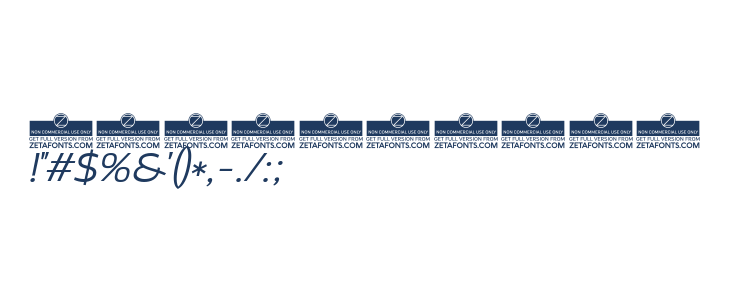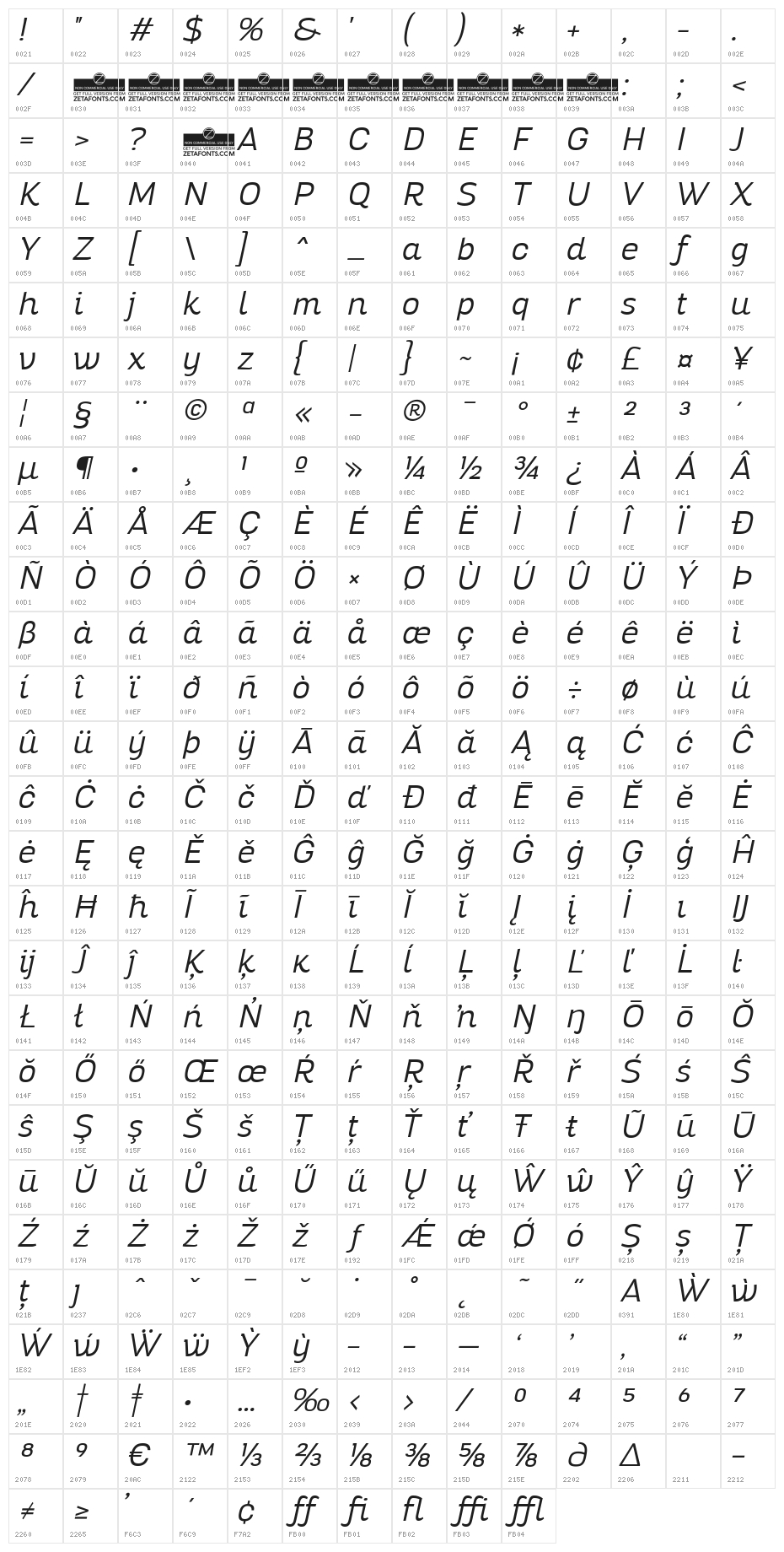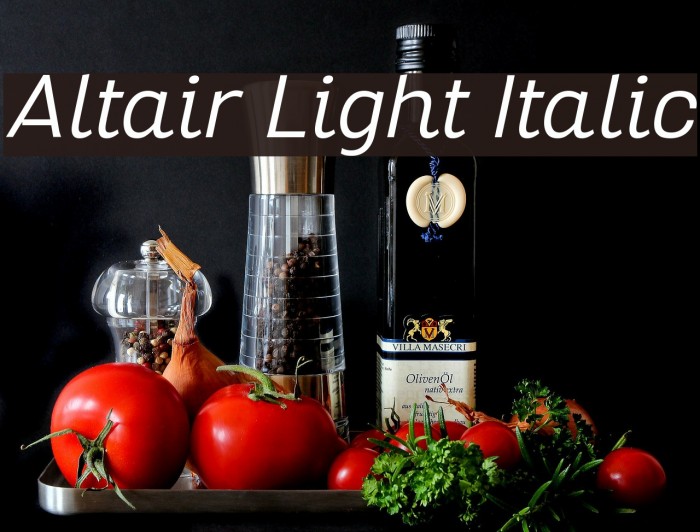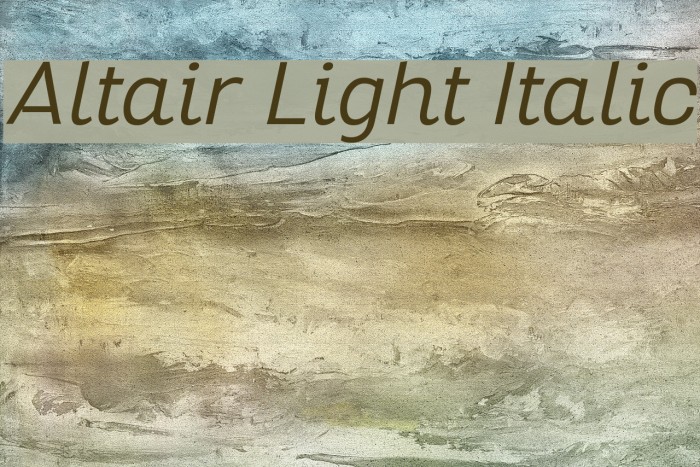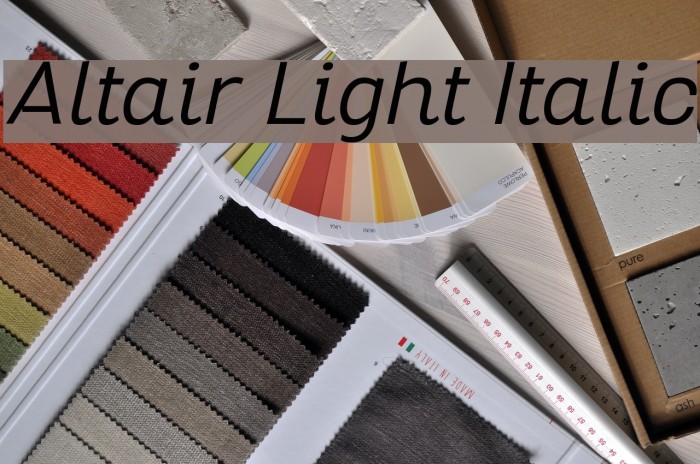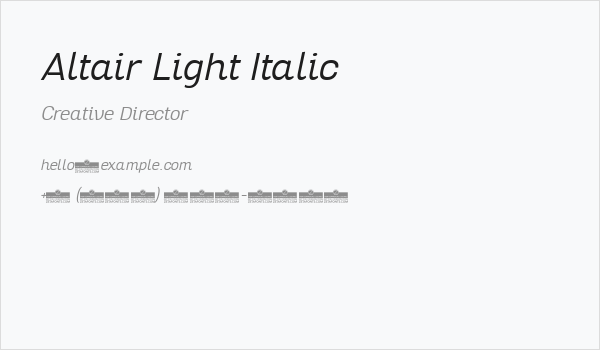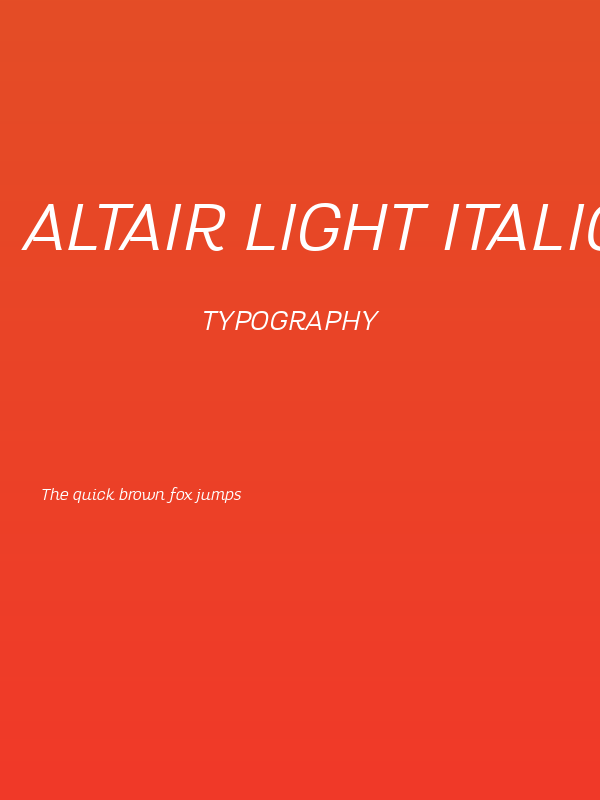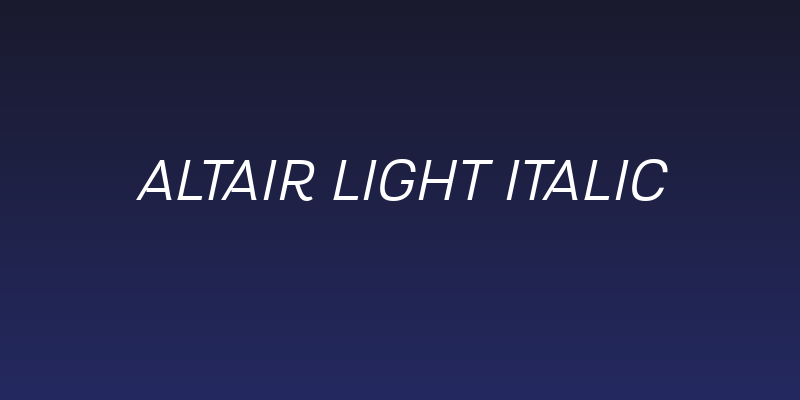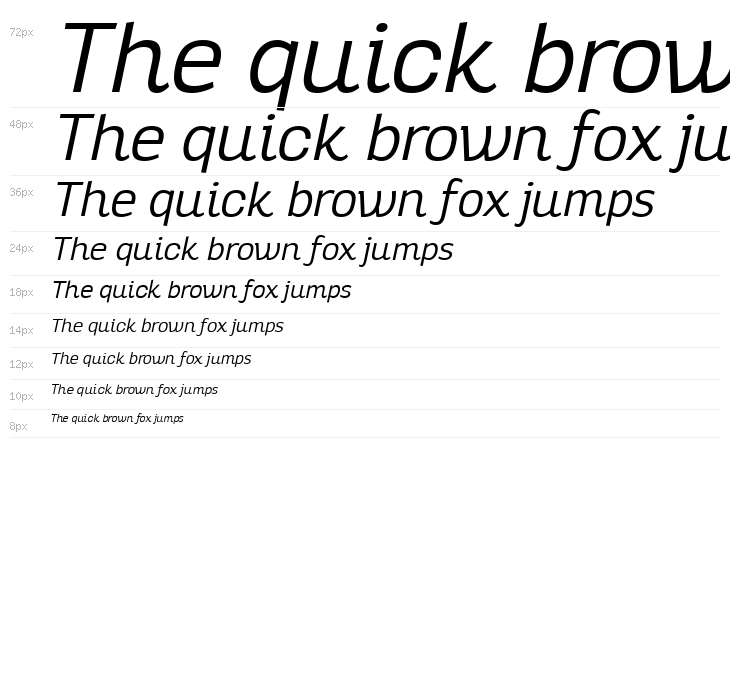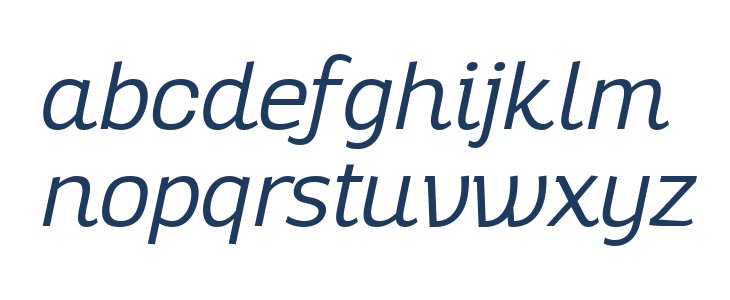
Altair Light Italic Font
Altair Light Italic Description
This elegant typeface features a sleek and modern design with a light weight and italic style. The characters are slightly slanted, giving a sense of motion and fluidity. The font maintains a clean and professional appearance, making it suitable for a variety of applications. Its sans-serif nature ensures readability, while the subtle curves and angles add a touch of sophistication. The spacing between characters is normal, allowing for clear legibility. The font's contrast is low, with consistent stroke thickness throughout, contributing to its minimalist aesthetic.
| Proposed Projects | Ideal for branding, editorial design, digital content, and corporate communications. |